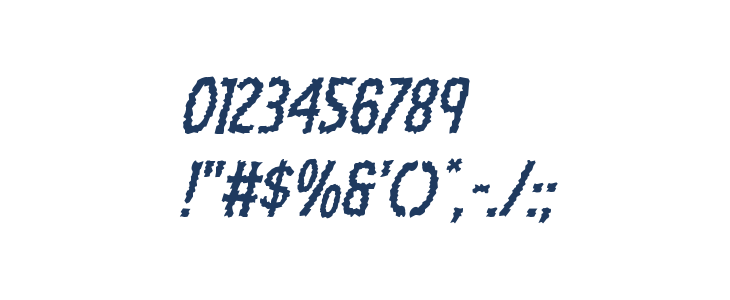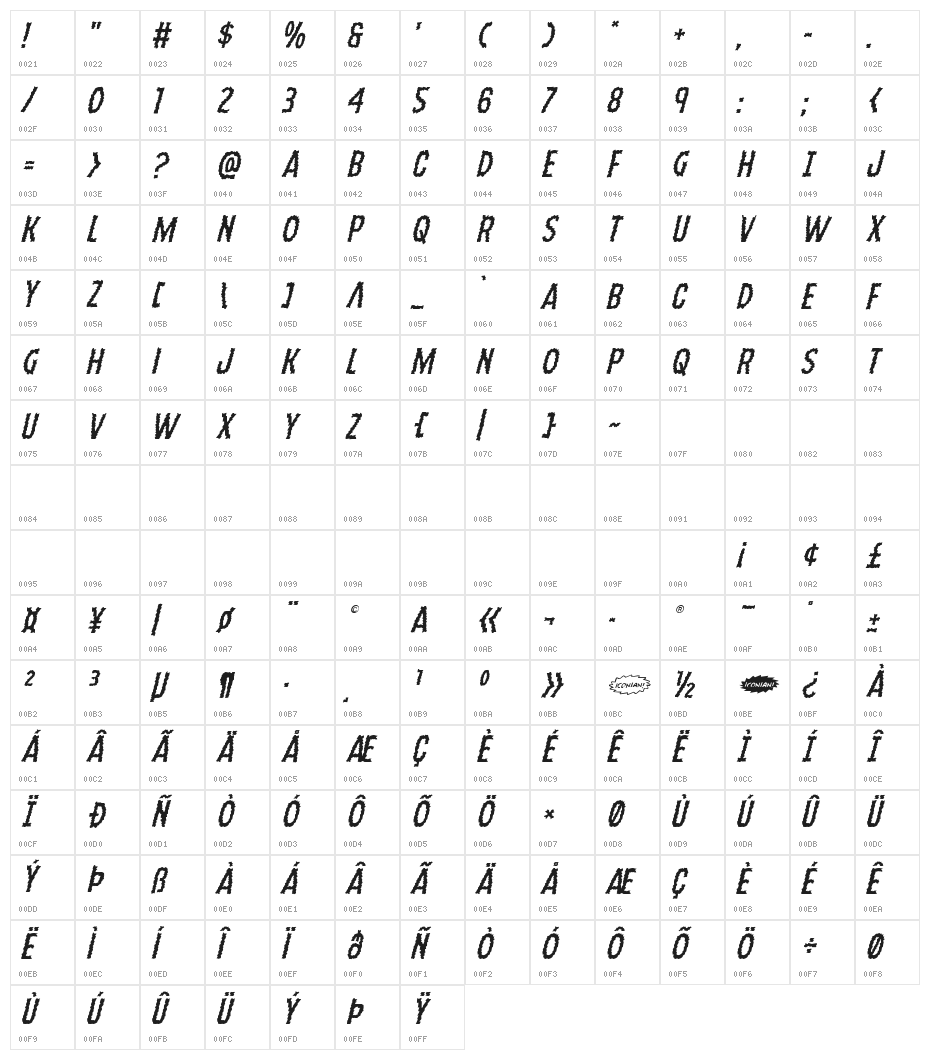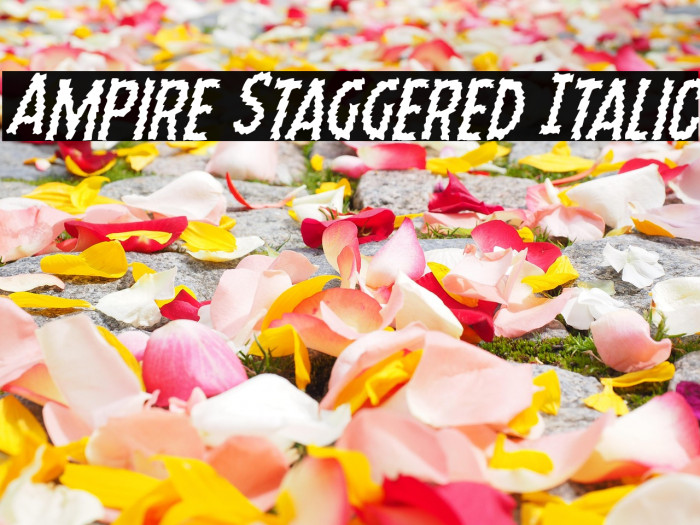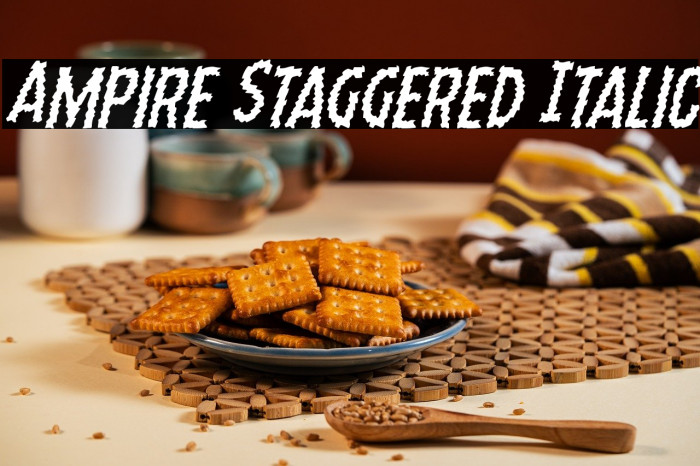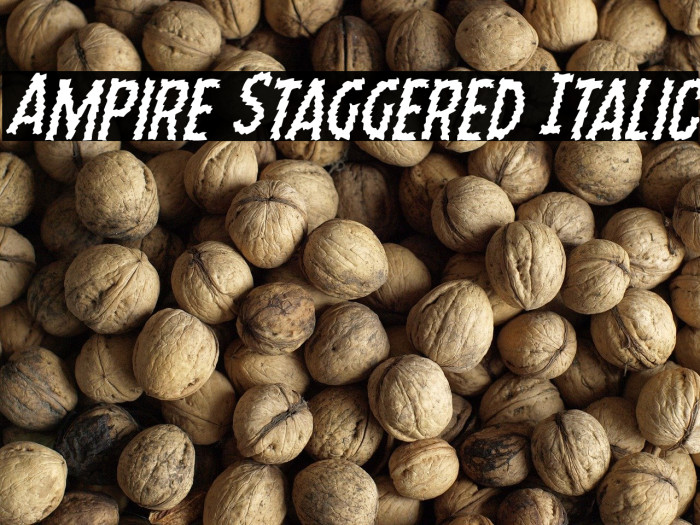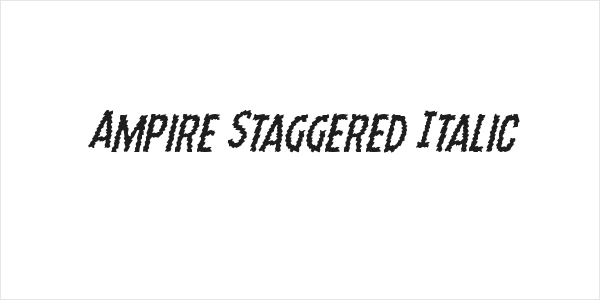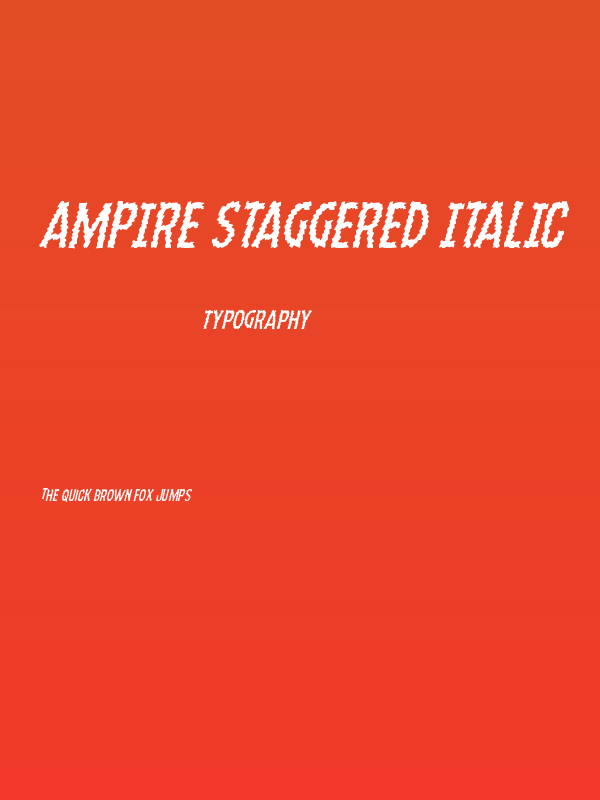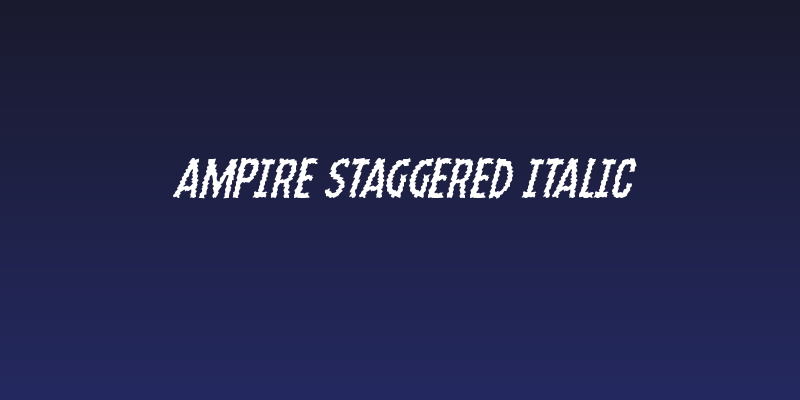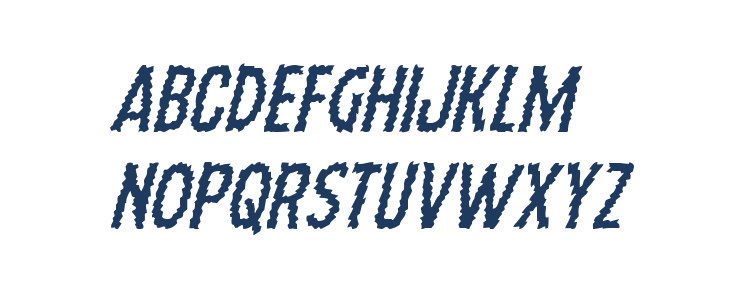
Ampire Staggered Italic Font
Ampire Staggered Italic Description
This font features a bold and dynamic style with a staggered, italicized appearance. The characters are sharply angled, giving them a sense of movement and energy. The jagged edges and irregular strokes create a unique, edgy look that stands out. This font is highly decorative, making it suitable for attention-grabbing headlines or creative projects. The uppercase and lowercase letters maintain a consistent style, while the numbers and special characters complement the overall design. Its boldness and distinctiveness make it ideal for projects that require a strong visual impact.
| Proposed Projects | Ideal for posters, album covers, branding, and any project needing a bold, edgy aesthetic. |